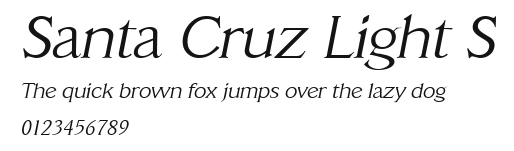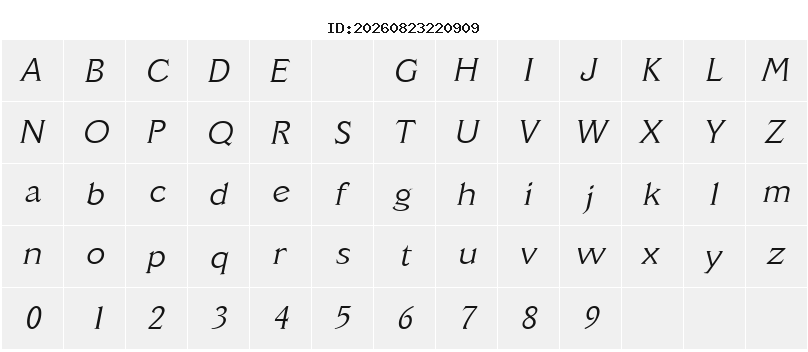
About Santa Cruz Light SF.ttf
Santa Cruz Light SF.ttf is a modern, elegant sans-serif font designed for ultimate readability and visual harmony. Perfect for branding, headlines, web design, and print materials.